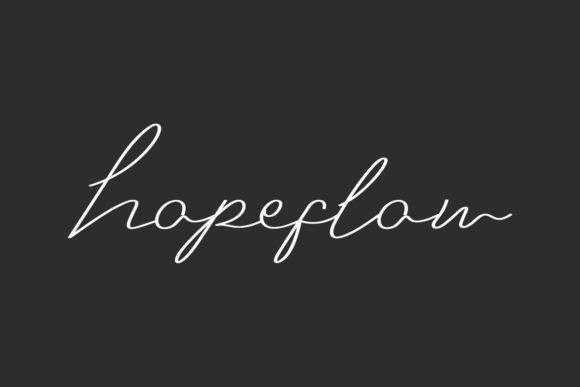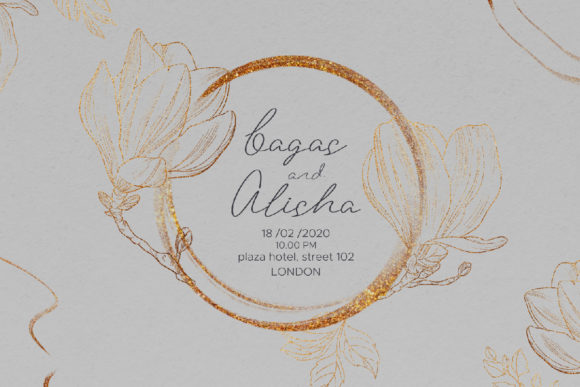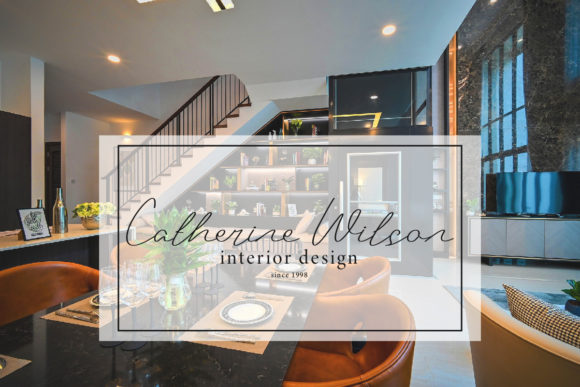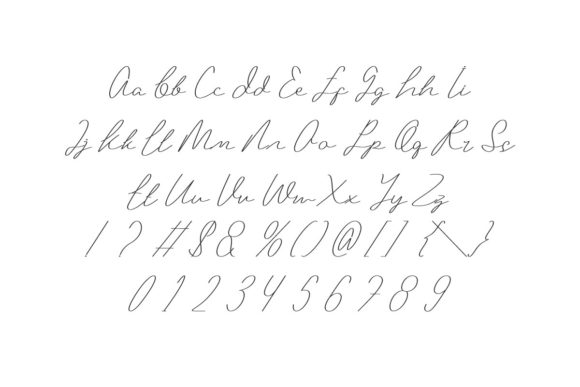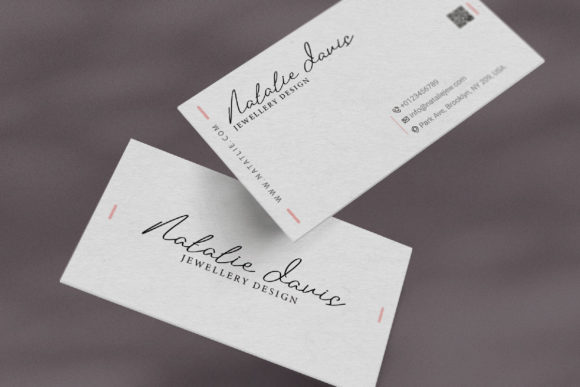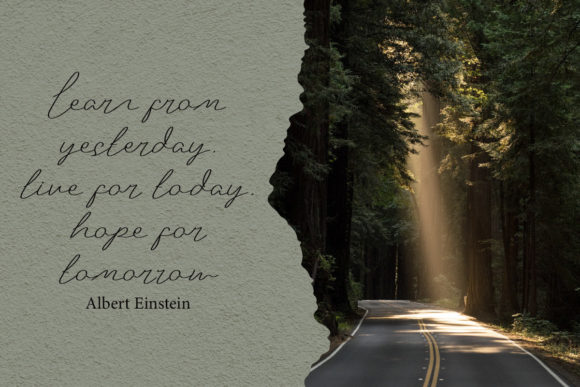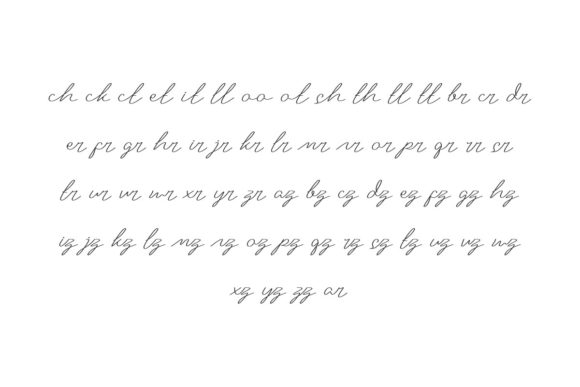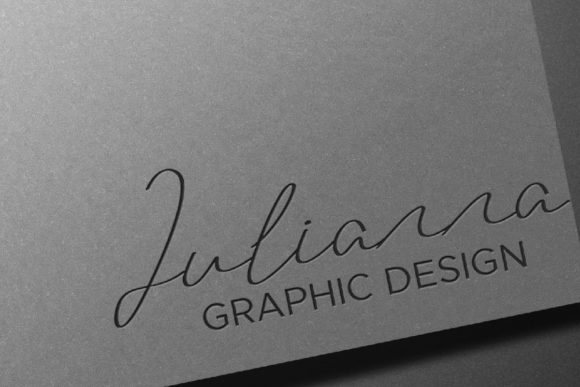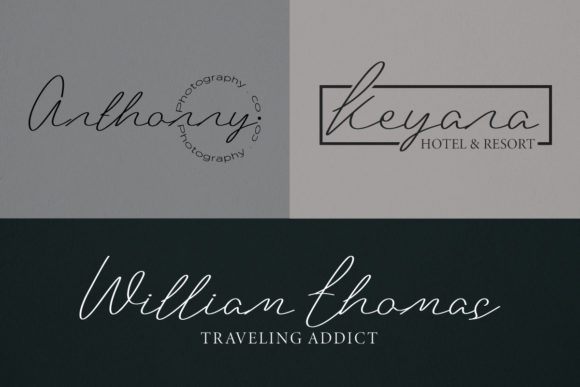
Hopeflow Font
“Hopeflow” embodies beauty and elegance with its exquisite handwritten style, making it an excellent choice for a variety of design purposes. Whether you’re creating wedding invitations, branding titles, book covers, social media posts, or any other project, this font is meticulously crafted to ensure your designs stand out effortlessly.
With its graceful strokes and flowing lines, “Hopeflow” adds a touch of sophistication and charm to every design it graces. Its timeless appeal exudes a sense of romance and allure, making it perfect for capturing the essence of special occasions like weddings or for adding a touch of elegance to branding materials and book covers.
Moreover, “Hopeflow” is designed with versatility in mind, allowing it to adapt seamlessly to different design contexts and themes. Whether you’re aiming for a classic look or a more contemporary vibe, this font offers the flexibility to complement your vision and enhance the visual impact of your projects.
One of the standout features of “Hopeflow” is its PUA encoding, which grants you easy access to all of its glyphs and swashes. This means you can effortlessly incorporate decorative elements and flourishes into your designs, adding an extra layer of creativity and customization to your work.
In addition to its aesthetic appeal, “Hopeflow” is also highly practical and user-friendly. Its clean and legible letterforms ensure readability across various mediums and platforms, ensuring your message is conveyed effectively to your audience.
In summary, “Hopeflow” is more than just a font—it’s a versatile and powerful tool that empowers designers to create stunning and memorable designs with ease. Whether you’re crafting wedding invitations, branding titles, book covers, or social media posts, this font is sure to elevate your projects and leave a lasting impression on your audience.